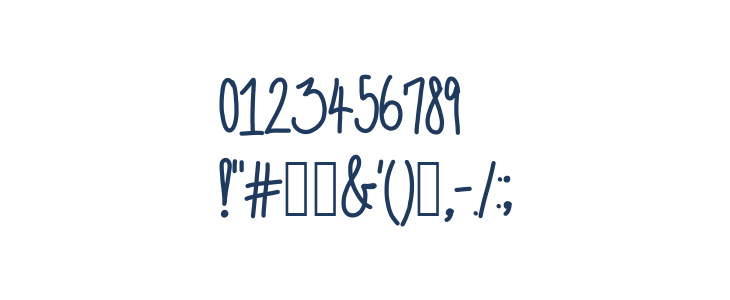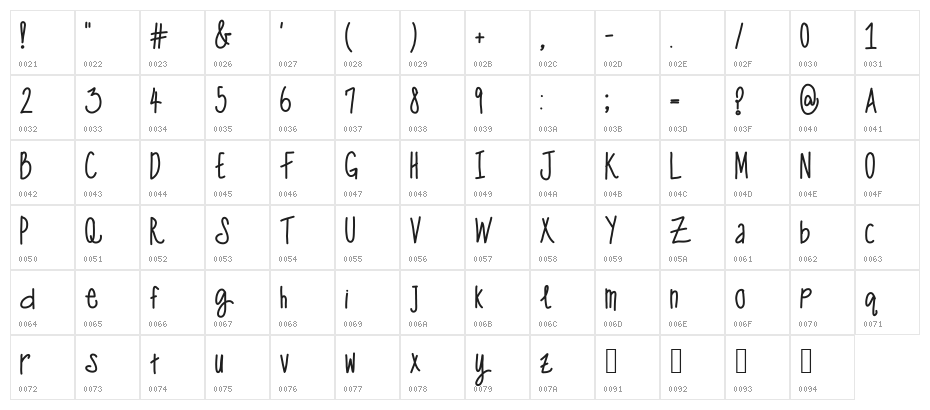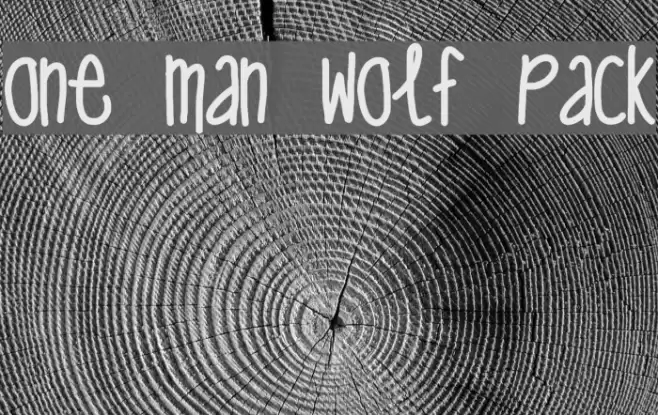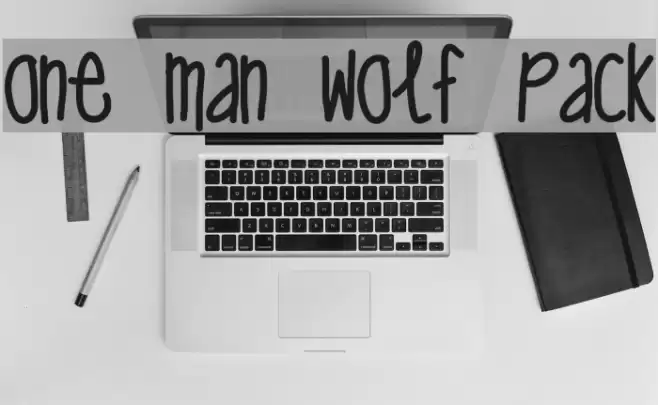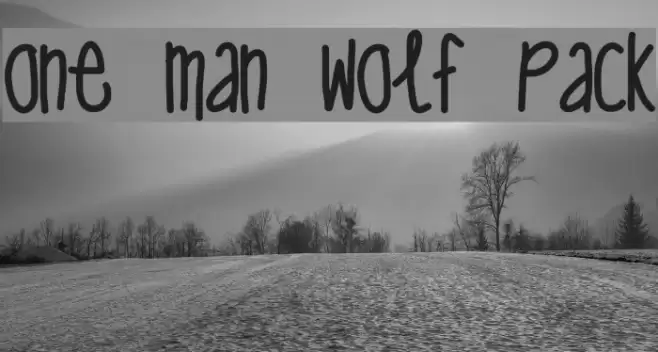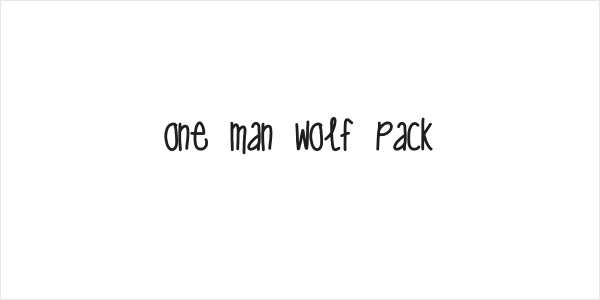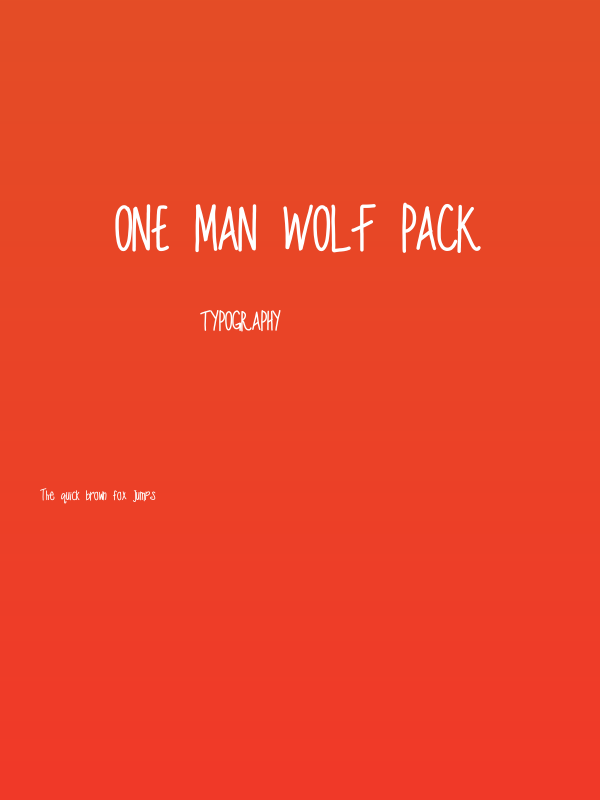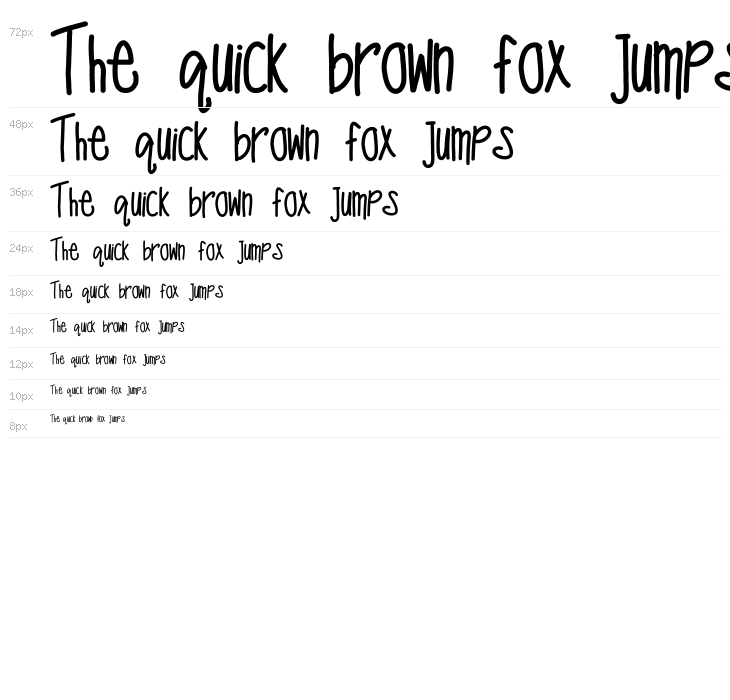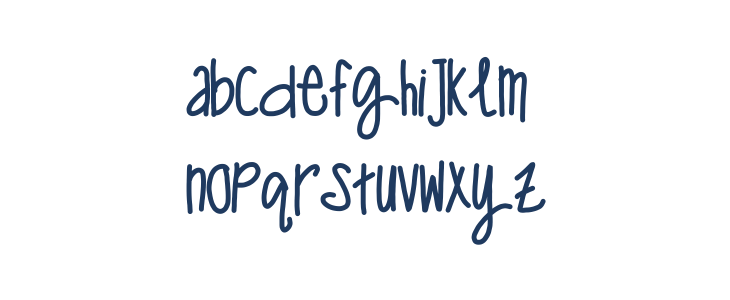
one man wolf pack Font
one man wolf pack Description
This font features a playful and casual handwritten style, characterized by its tall and slightly irregular letterforms. The strokes are smooth and consistent, giving it a friendly and approachable appearance. The uppercase and lowercase letters maintain a cohesive look, with a slight slant that adds to its informal charm. The numerals and special characters are crafted with the same playful touch, making them blend seamlessly with the alphabet. This font's unique personality makes it suitable for projects that require a personal and informal touch.
| Proposed Projects | Ideal for greeting cards, children's books, personal blogs, and informal branding. |